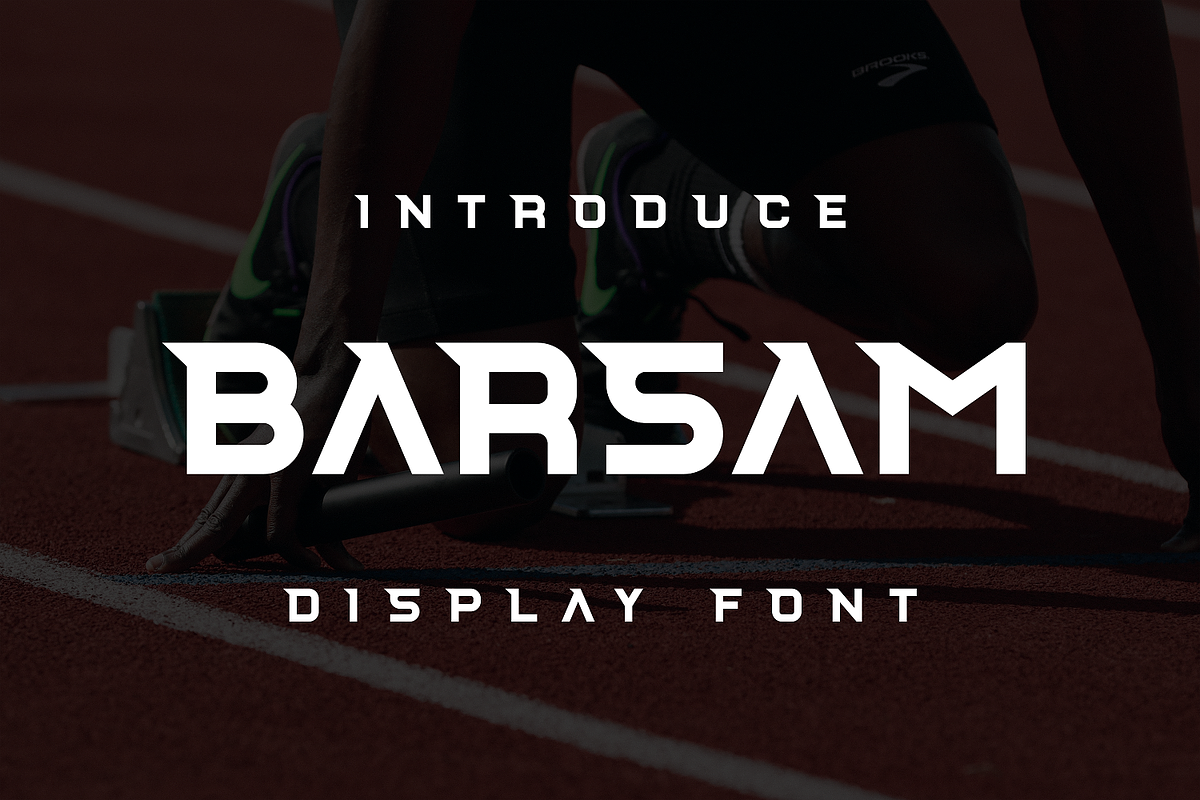
Barsam Font Free Download is a sleek and contemporary typeface designed to make your typography stand out with style and confidence. With its clean lines, geometric balance, and subtle personality, Barsam is perfect for modern branding, logo design, editorial layouts, digital ads, and professional presentations.
Barsam Font Free Download delivers a versatile and polished look, whether you're crafting minimalist headlines or structured text blocks. Its refined form adds a sense of clarity and sophistication to both web and print projects. Download it now and explore how Barsam can bring modern elegance to your next creative venture.